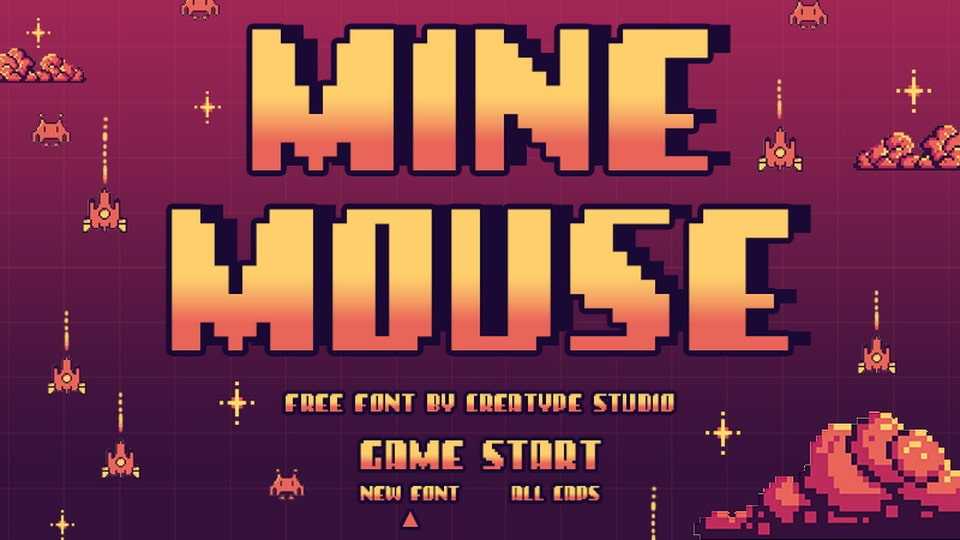
Download Mine Mouse font, a bold pixel game typeface that channels the nostalgia of classic arcade games and 8-bit adventures with its chunky, grid-based design.